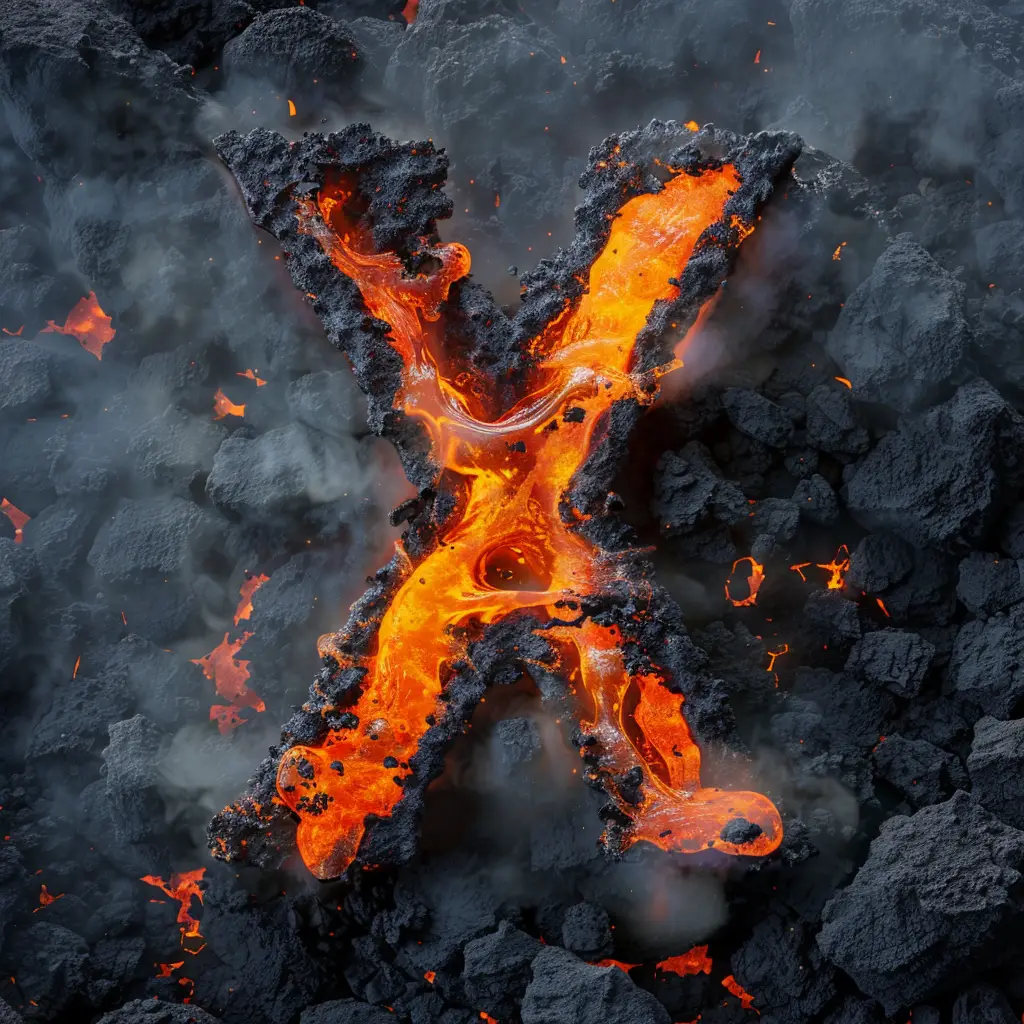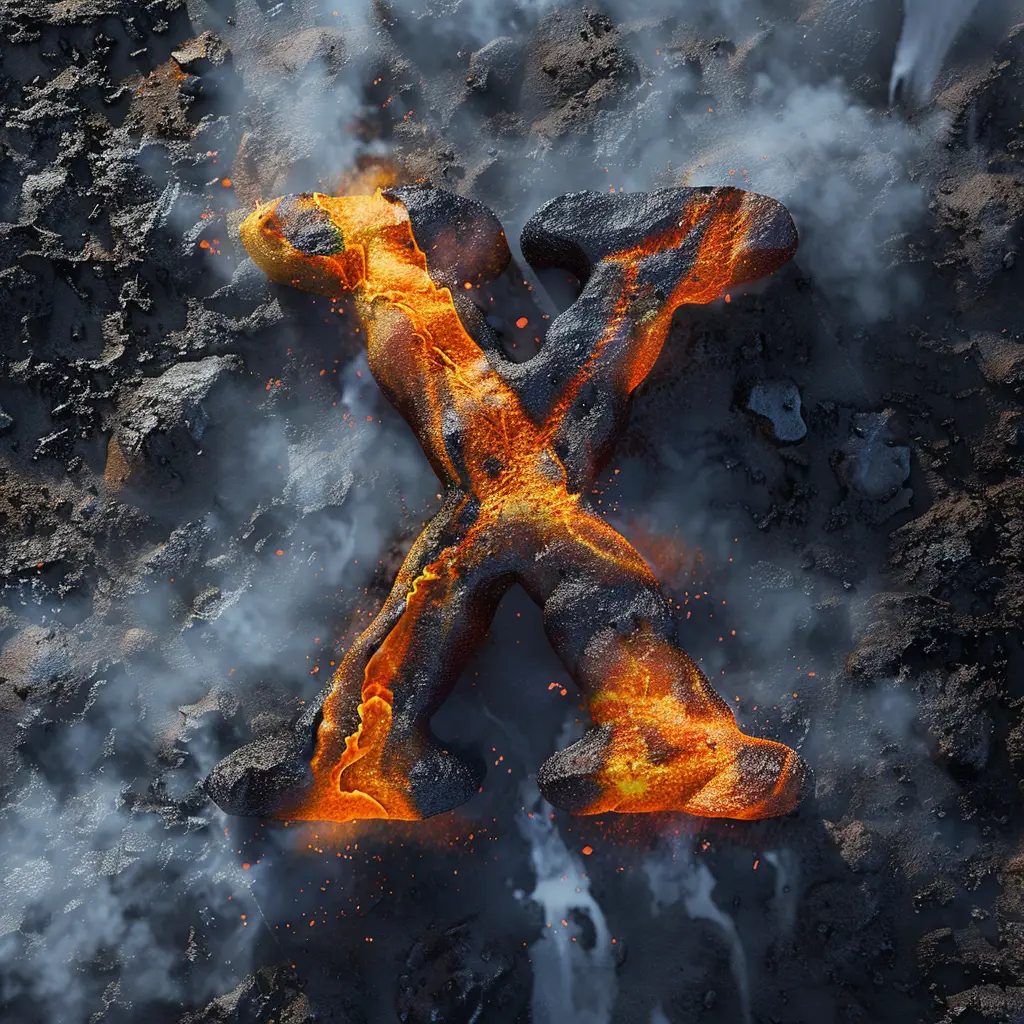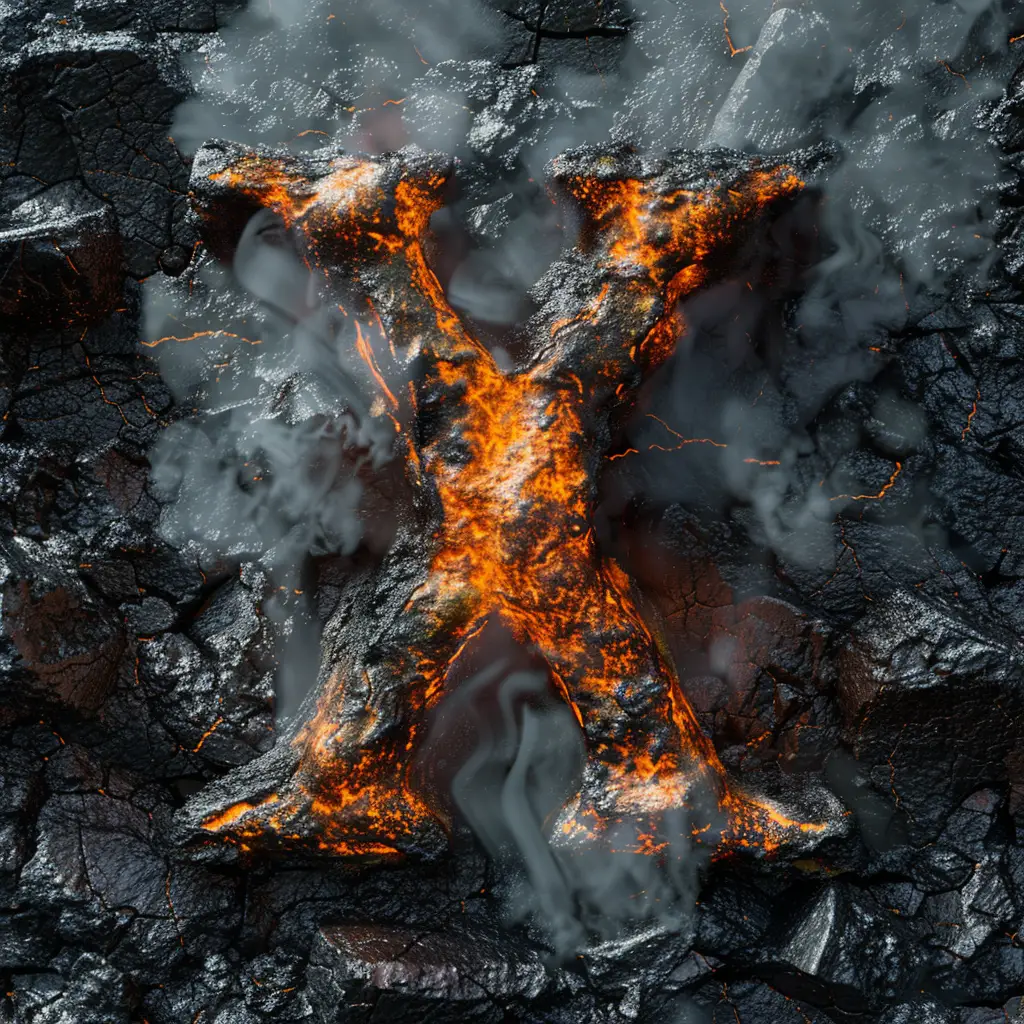
The image features a stylized letter "X" formed by molten lava, set against a backdrop of dark, charred volcanic rock. The lava glows with vibrant orange and red hues, contrasting sharply with the black, ashy texture of the surrounding stones, while wisps of smoke and scattered embers add to the fiery, dynamic atmosphere.